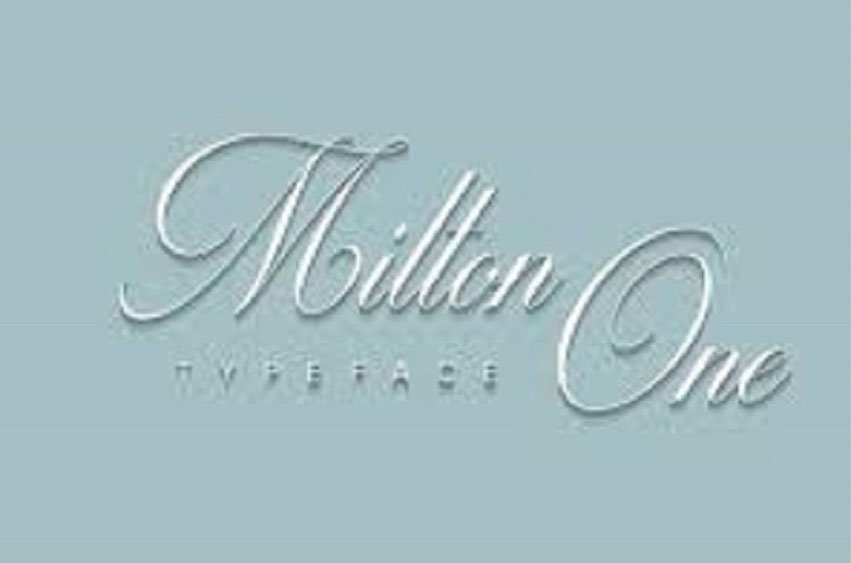
Milton One Font is well-suited for a variety of contexts, such as print design, promotional materials, or magazine layouts.
Crafted with high attention to detail, it gives you the best design experience.